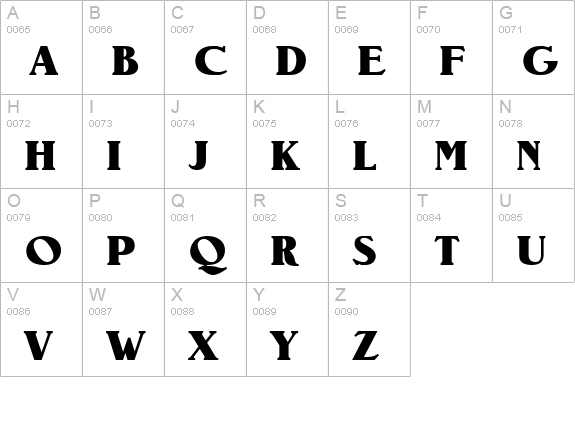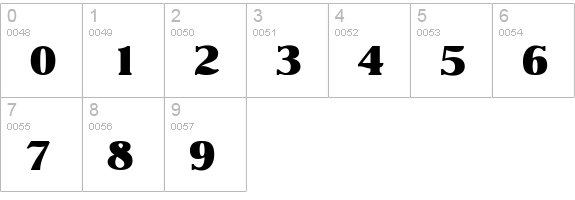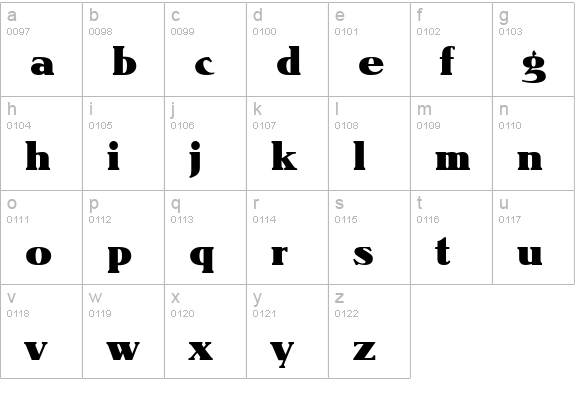
Blenden Display SSi Font Details
Blenden Display SSi font is a sophisticated and modern typeface that exudes elegance and style. With its unique blend of sharp edges and smooth curves, this font is perfect for creating eye-catching headlines, titles, and logos. Its bold and commanding presence will make your designs stand out from the crowd. The best part about Blenden Display SSi font is that it is available for free download at FontsMarket.com. This means you can access this premium font without any cost, making it a valuable addition to your font collection. Whether you are working on a project for personal use or a client, Blenden Display SSi font offers versatility and creativity at your fingertips. Elevate your designs with this stunning font today!